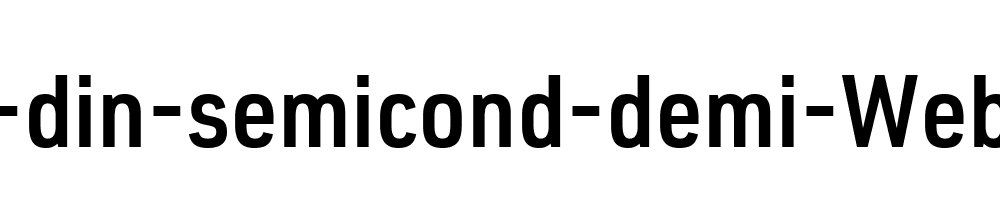
About urw-din-semicond-demi-WebFont
The URW DIN Semicond Demi WebFont font, designed by an unknown creator, showcases a sleek and modern design with clean lines and sharp edges. Its uppercase letters are characterized by a balanced mix of sharp angles and smooth curves, giving it a distinct look that makes it suitable for various design projects. The font features closed counters and minimalistic serifs, adding to its technical and structured appearance. The apertures are carefully crafted, providing a clear distinction between each letterform, while the crossbars and spurs are elegantly executed, enhancing the font’s overall aesthetic. With a medium weight and a slight lean towards the cold side, this font falls under the categories of neutral and elegant, making it ideal for conveying a serious yet friendly tone in design projects that require a modern touch. Admired for its simple yet sophisticated design, the URW DIN Semicond Demi WebFont font is a versatile choice for those seeking a clean and professional look.